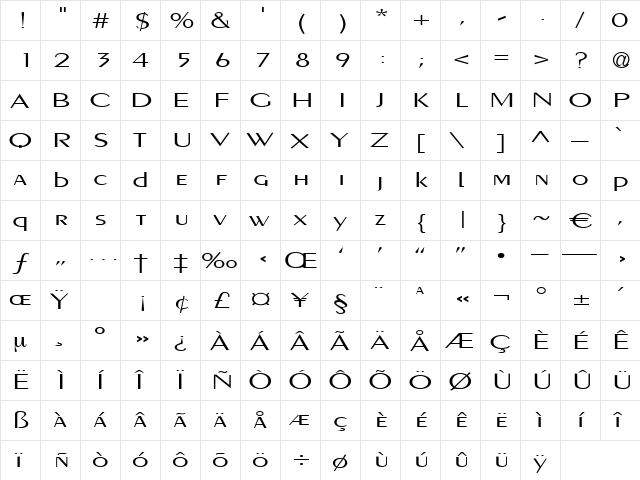
Facette Regular Font Preview
Facette Regular
Design Context for Facette Typeface
Facette takes a measured approach to typography — its balanced proportions and neutral character make it a reliable workhorse for both digital and print work.